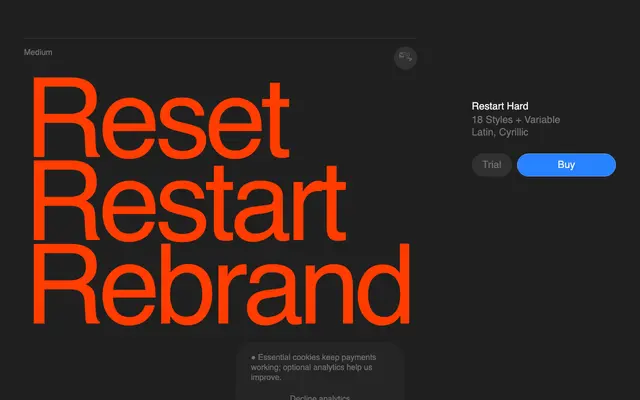
Restart Hard
Superior Type · Vojtěch Říha
A neo-grotesque sans covering Latin and Cyrillic in 18 styles plus a variable font, designed for branding and broad editorial use.
Designed by Vojtěch Říha, Restart Hard follows the neo-grotesque tradition with a generous x-height, clean stroke terminals and tight spacing aimed at clarity across print and screen. The family runs from Thin to Black with matching italics, totalling 18 static styles alongside a variable font, and supports 351 languages across Latin and Cyrillic scripts. Ten stylistic sets and a full suite of OpenType features including old-style figures, fractions and slashed zero give it practical depth for identity and typographic systems work.
The foundry explicitly describes it as a neo-grotesque sans-serif, with a generous x-height, clear stroke endings and tight spacing consistent with that tradition.